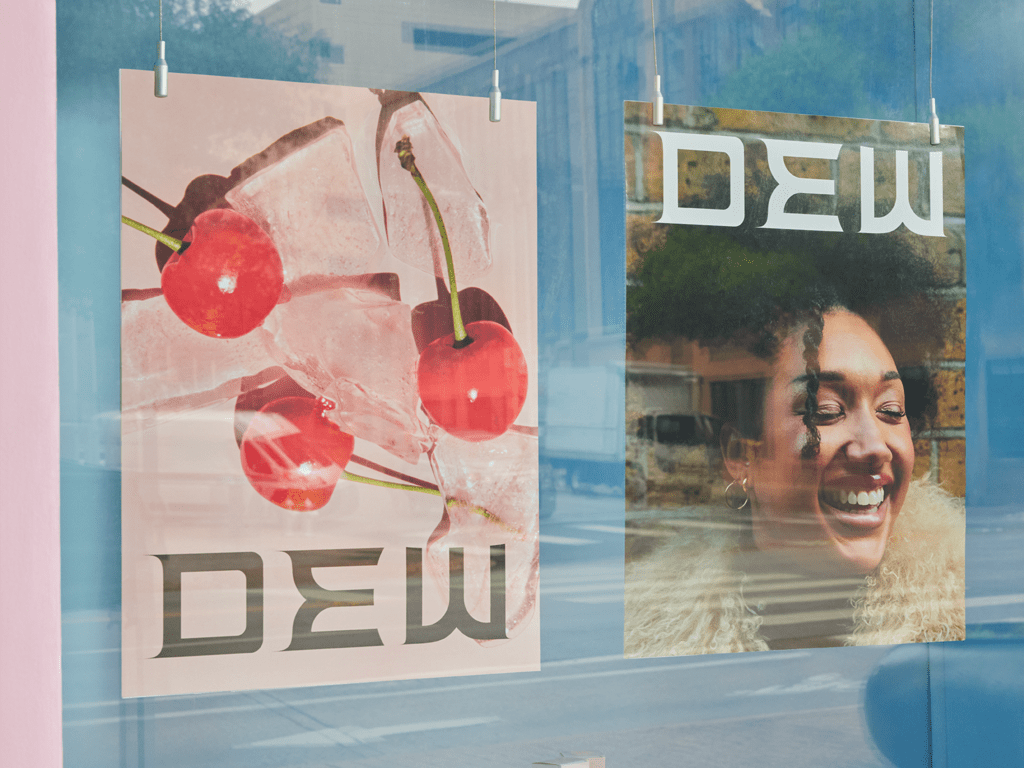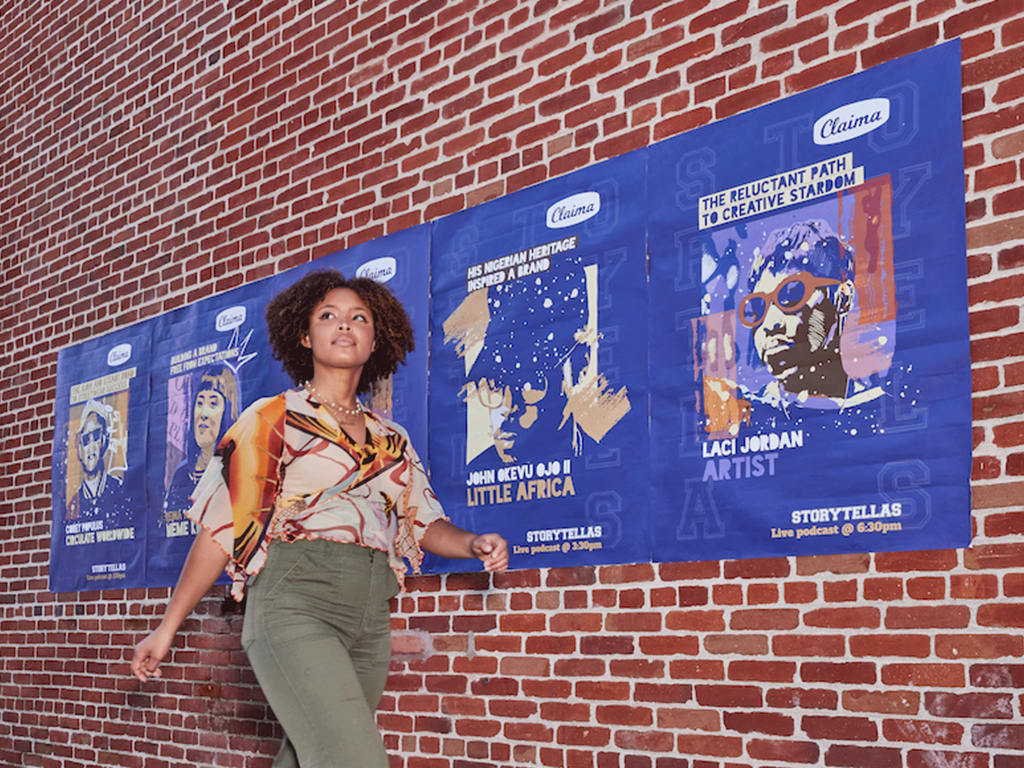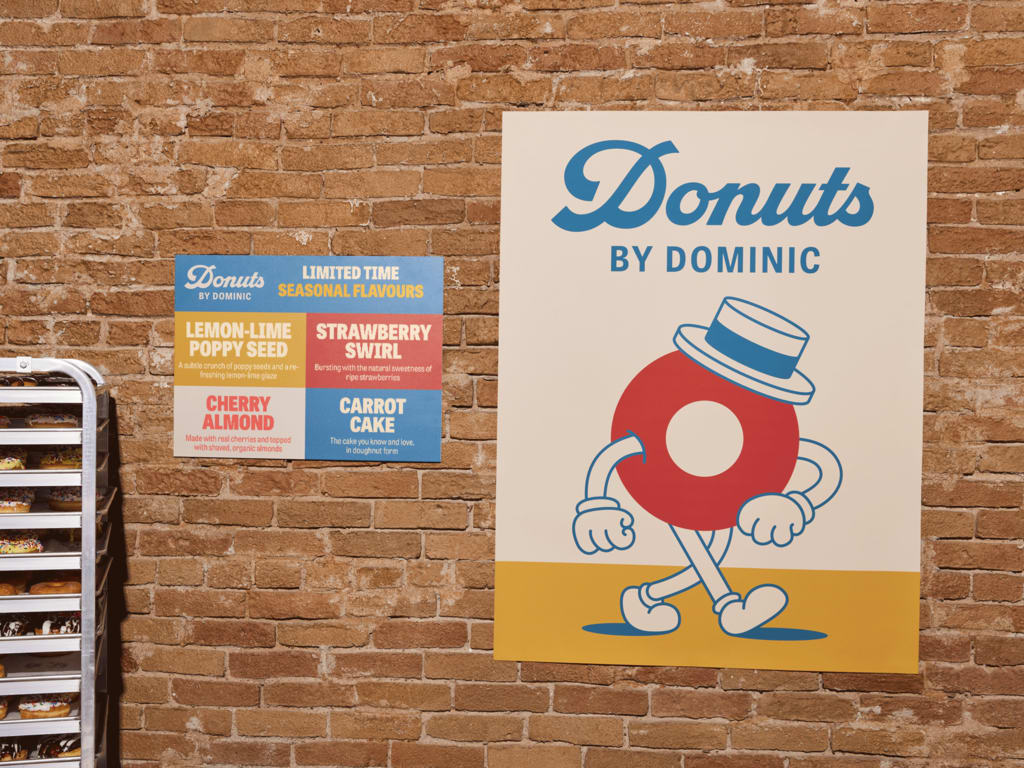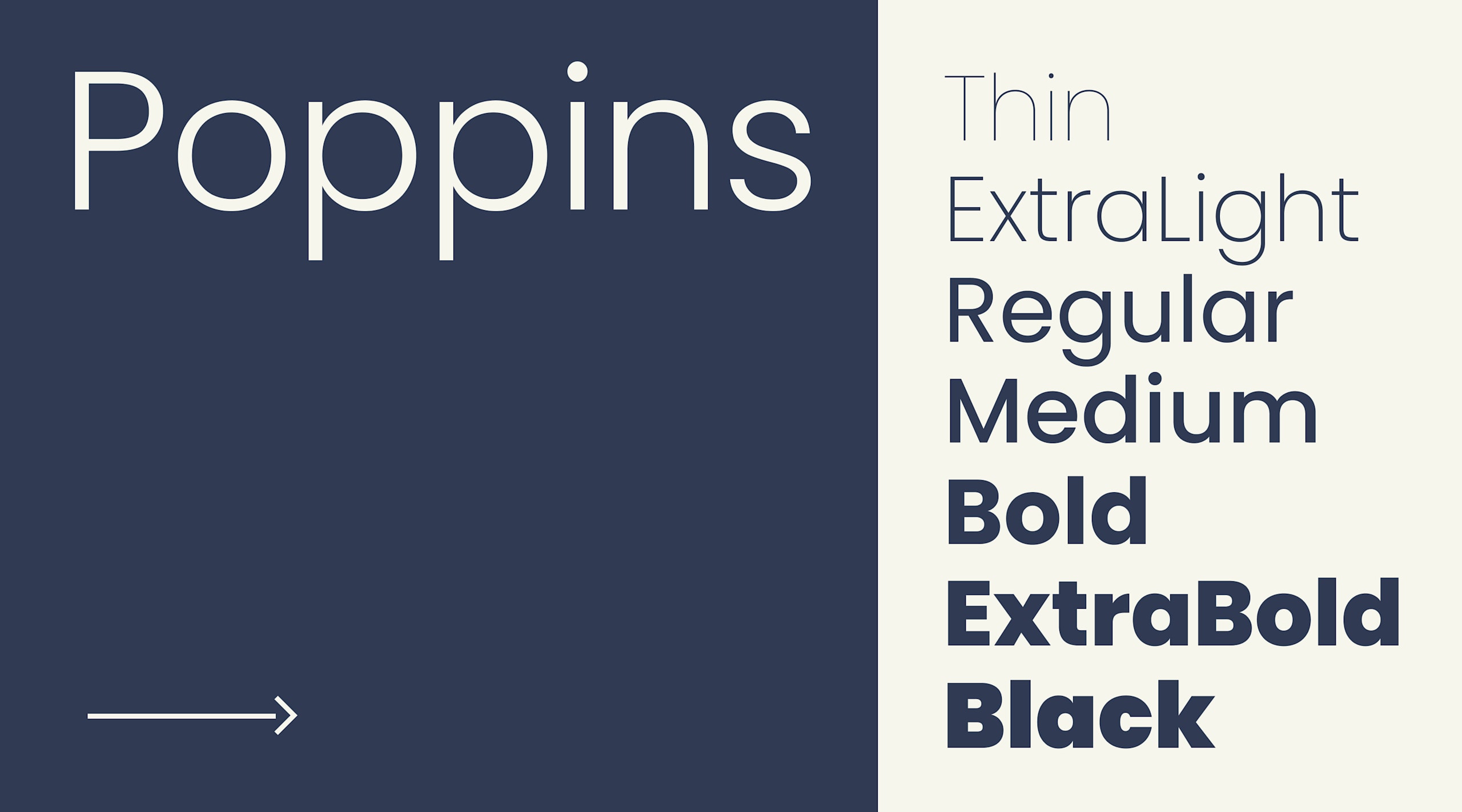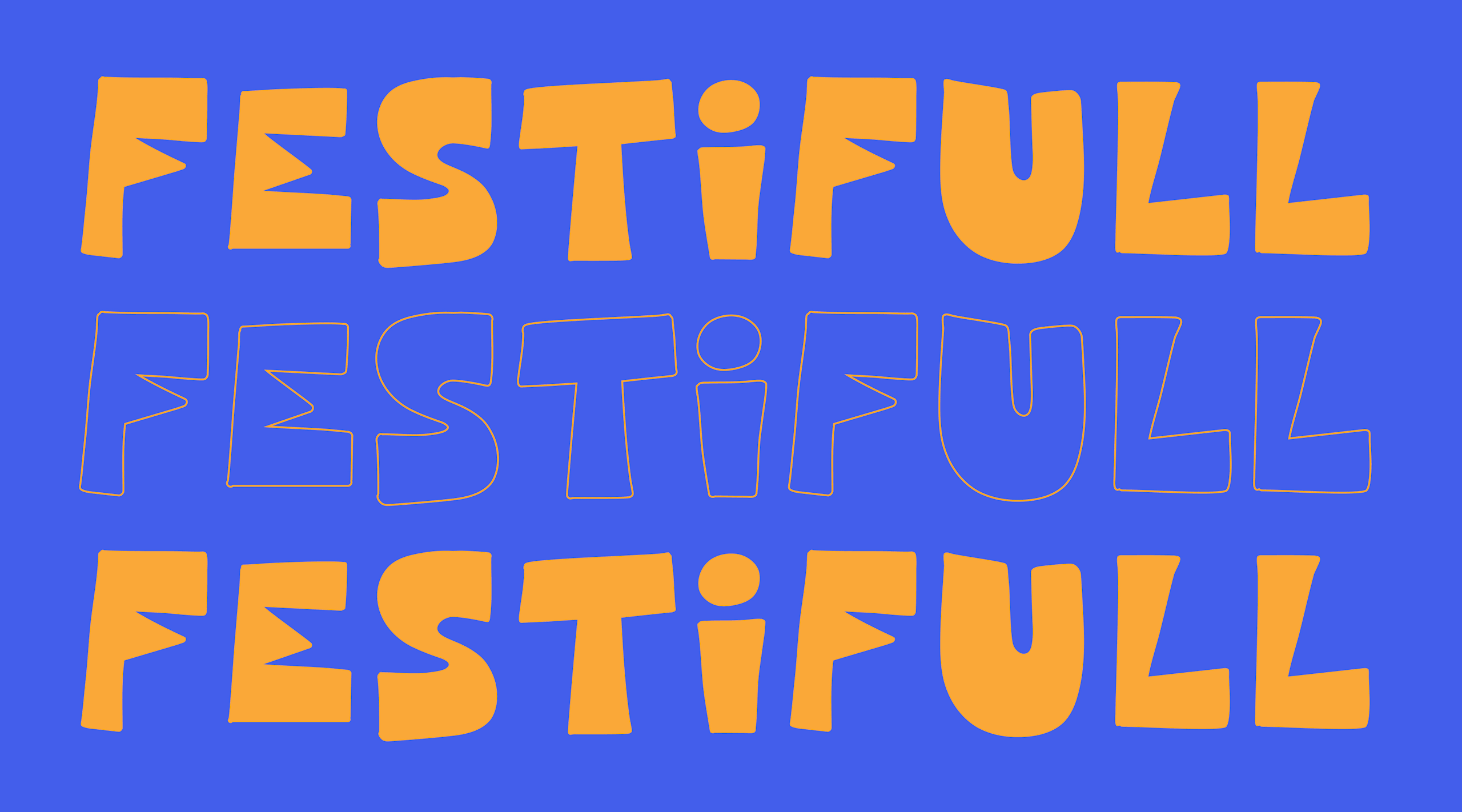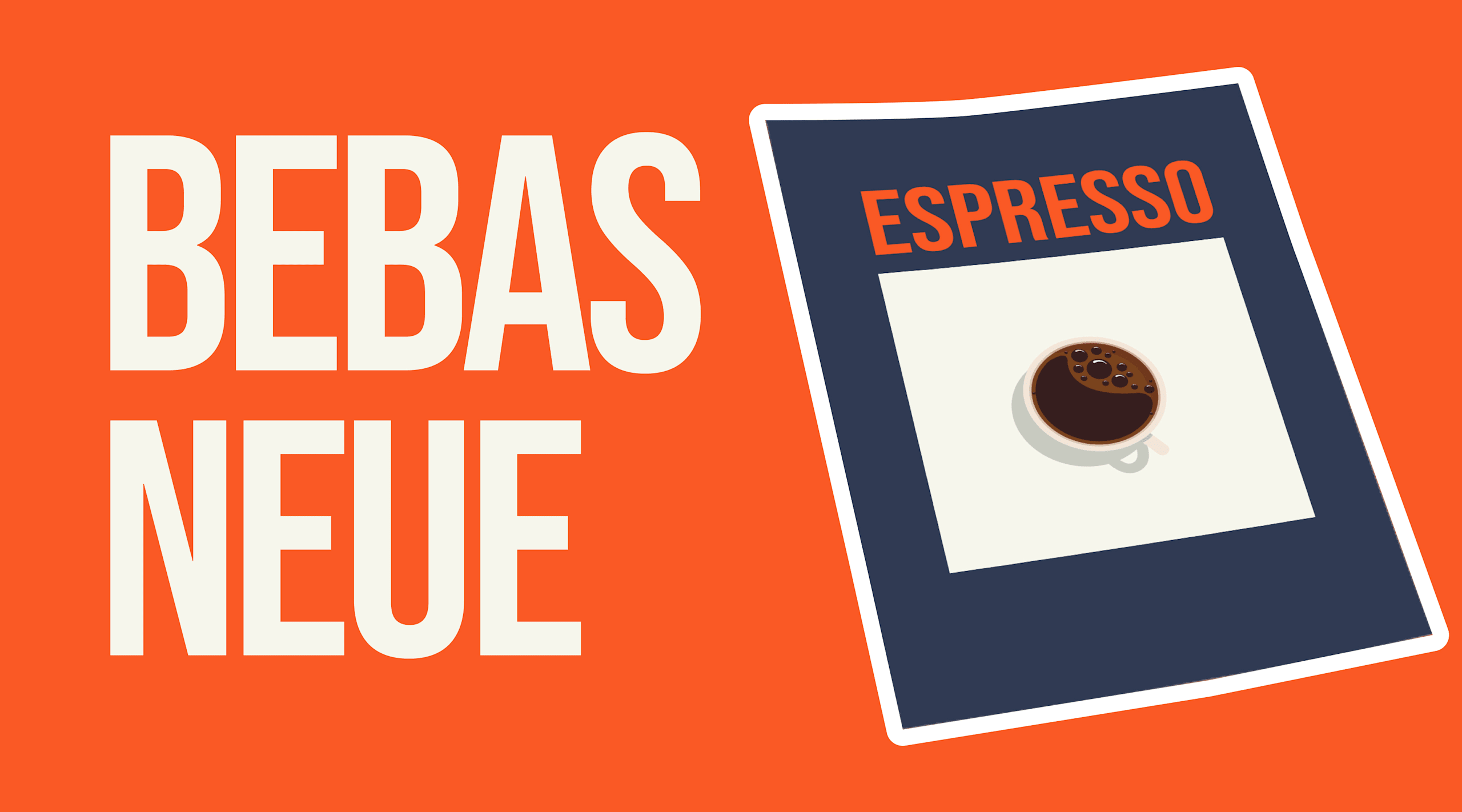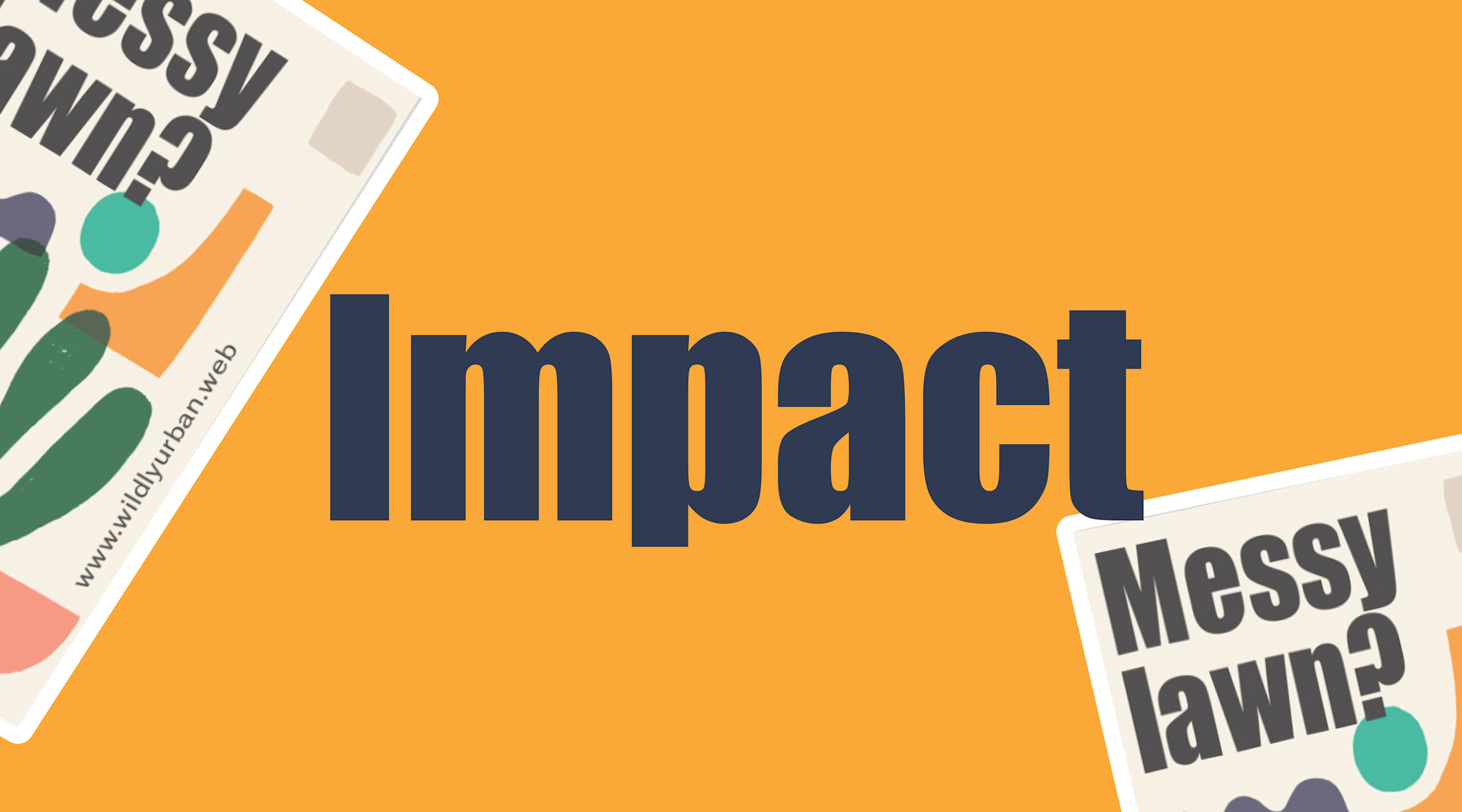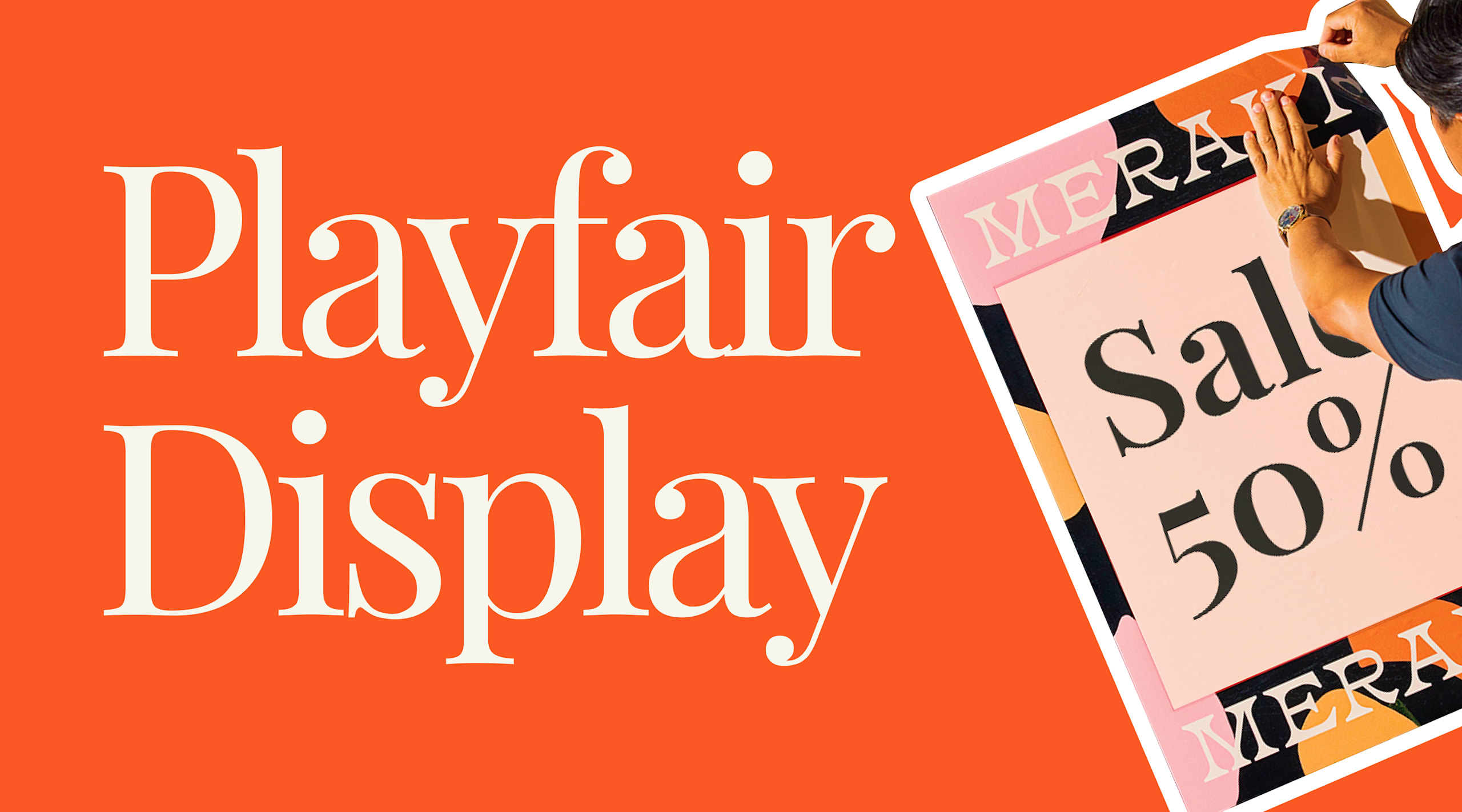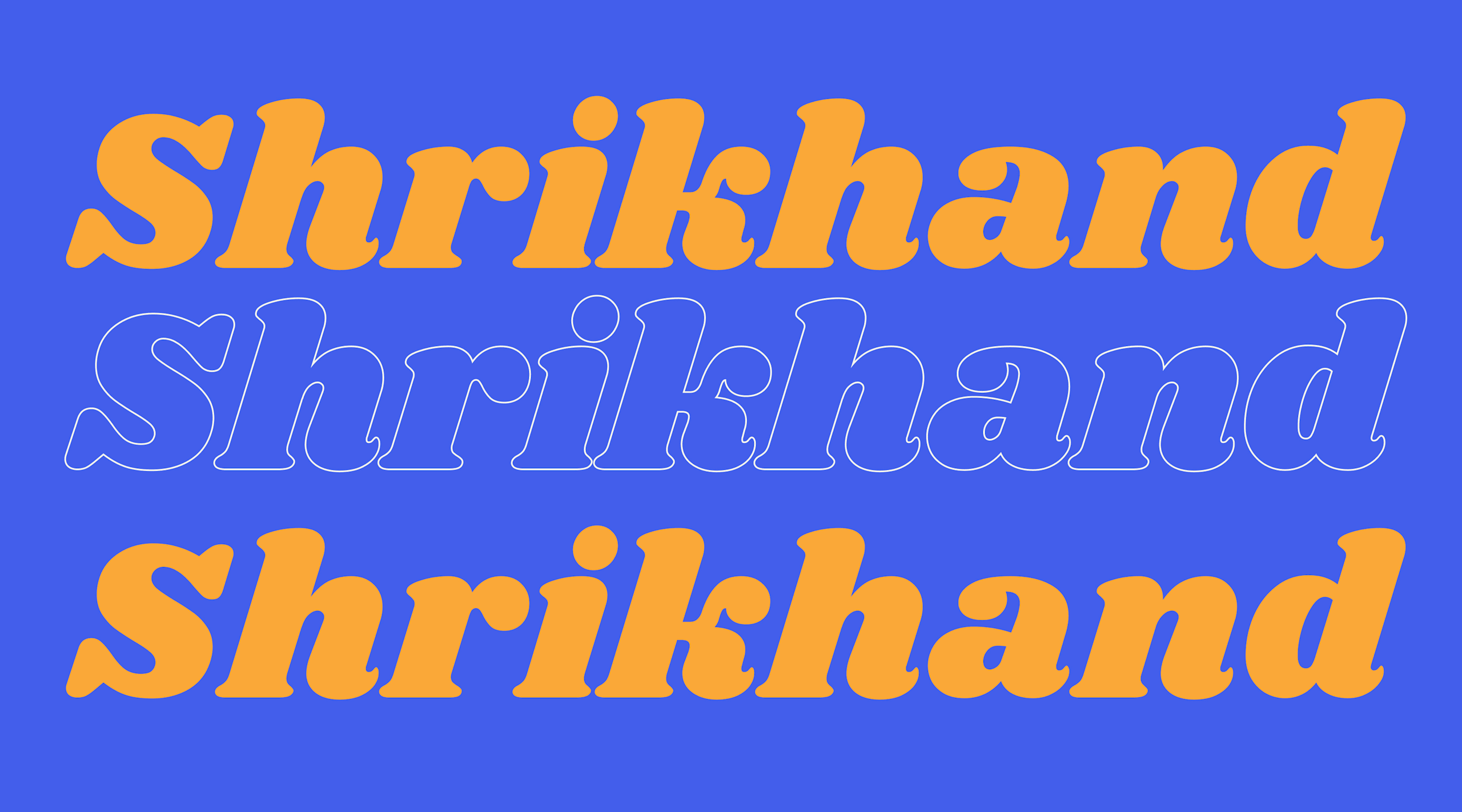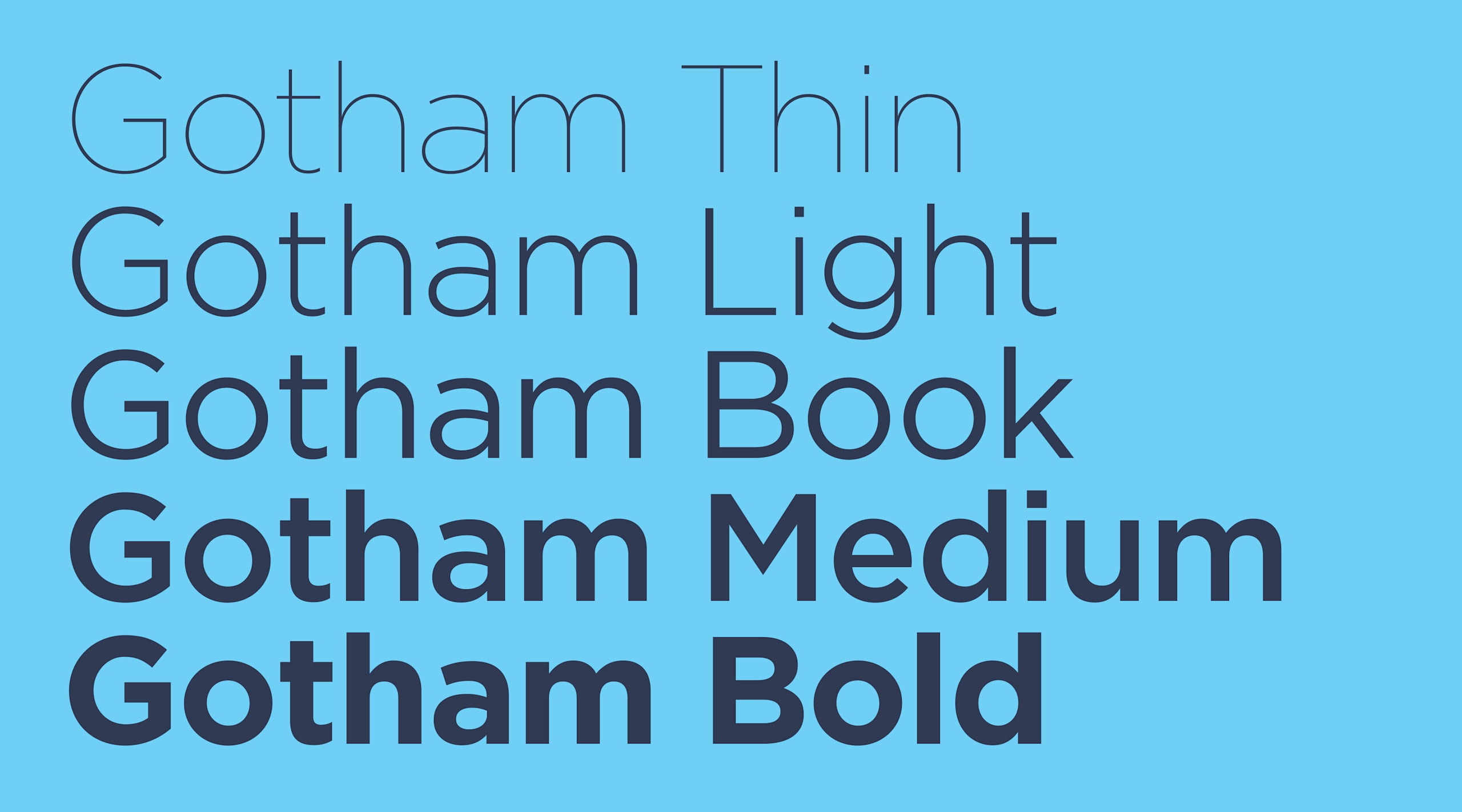
15 poster fonts to entice new customers
Colorful store counter with branded poster fonts, coordinated menus, paper bags, and logo stickers.
Whether you’re designing a poster to promote a local event or a major product launch, the right font can affect the impact your poster has on your audience. The best poster fonts balance style with legibility, making sure your message isn’t just seen, but remembered. From bold sans serifs to elegant scripts, this guide will walk you through 15 good fonts for posters and how to use them effectively to grab attention and entice new customers.
How to choose a good poster font
The best font for your poster depends on your audience, message and where it will be displayed. The right typeface can communicate your brand’s personality before people even read the words on your poster.
Consider the viewing distance
Fonts that look great up close might lose impact from 20 feet away. Opt for bolder typefaces with clear, distinct letterforms in larger text sizes for posters at street-level or designed to be viewed from a distance.
When designing posters for billboards or storefronts, remember that intricate or whimsical details will be lost at a distance. Sans serif fonts are usually more legible than decorative typefaces when viewed from afar. The key is to ensure your message remains clear regardless of where the poster is displayed.
Match your brand personality
Like fonts for flyers and brochures, your poster font and design should reflect your brand identity and voice. Think about what your font communicates. For example, a suitable font for a law firm’s event poster will differ from a concert poster font.
A serif typeface conveys tradition, reliability and sophistication, while sans serif fonts project modernity and simplicity. Script fonts suggest elegance and creativity, and display fonts can express personality and boldness.
Artistic and playful poster fonts.
Balance readability with style
Even the coolest fonts are ineffective if people can’t understand the message of your poster quickly. This doesn’t mean you should avoid creative fonts altogether—just use them strategically.
Consider using more expressive fonts for headlines and shorter text elements, and highly readable fonts for body copy, creating visual hierarchy and ensuring the information is accessible.
Clear sans serif poster fonts for donut bakery.
Grab attention with titles
Because the headline is your poster’s first impression, it needs to command attention instantly.
Title fonts should be:
• Substantially larger than body text (typically 2-3 times bigger)
• Bold or heavy in weight to create contrast
• Distinctive enough to capture interest
• Still readable at a glance
Typefaces specifically designed for headlines are a category of display fonts crafted to make a statement at large sizes, but might not work well for smaller text.
Poster fonts in different colors and sizes for fitness business.
15 font ideas for posters
When choosing poster fonts, you need a typeface that captures attention and clearly communicates the mood of a campaign and the tone of your message. Here are 15 good fonts for posters, accompanied by custom sample text.
Sans serif poster fonts
Clean and highly readable, sans serif fonts (without the fine strokes at the ends of characters) are popular fonts for modern poster designs and work well even at smaller sizes.
1. TT Commons
TT Commons is a versatile and neutral sans serif typeface with balanced proportions and clean lines. The font comes in many weights from thin to extra bold, allowing you to create hierarchy within your poster design using just one typeface.
Best for: Educational posters, infographics and community event posters. TT Commons can be used for headlines and body copy because it’s ultra legible.
TT Commons clean poster fonts.
2. Futura
Futura is a timeless and geometric sans serif font based on perfect circles and clean lines. Created in the 1920s, this popular font still feels modern, making it one of the most enduring poster fonts available.
Best for: Fashion posters, art exhibitions and architectural event posters.
Futura poster fonts with geometric, modern shapes.
3. Work Sans
Work Sans is a friendly and adaptable sans serif font with soft touches that add warmth to its geometric structure. As a free Google font, Work Sans is an affordable go-to font for small businesses and community organizations.
Best for: Small business promotions, community events and brand announcements. This free font comes with multiple weights, so it can be used to create hierarchy without switching typefaces.
Work Sans free poster fonts with geometric style.
Display poster fonts
These bold, attention-grabbing fonts are designed for headline text, rather than body text. When combining fonts, use one display font for headlines, one clean sans serif for subheadings and one highly readable font for body text to create a clear hierarchy.
4. TT Trailers
TT Trailers is an expressive and cinematic display font created specifically for impactful header text. The narrow letterforms allow you to use larger text sizes and longer titles, even with limited poster canvas space.
Best for: Movie or theatre posters and promotional posters designed to make an impact. The big-screen impact of the narrow letterforms helps create excitement.
TT Trailers headline poster fonts.
5. Bebas Neue
Bebas Neue is a powerful and compact all-caps sans serif font that packs maximum visual punch into minimal space. Its tall height and condensed proportions make it efficient and impactful for headers where space is limited, and its clean lines maintain legibility even when used with strong backgrounds or overlaid onto images.
Best for: Sales announcements, sports events and bold promotions. The all-caps look commands attention even when space is limited.
Bebas Neue bold, compact poster fonts with an all-caps style.
6. Impact
Impact is a bold and unmissable display font designed to grab attention. Its heavy weight, tight letter spacing and tall height are engineered to maximize presence in minimal space.
Best for: Important announcements and sales promotions. The bold weight and tight spacing make your message impossible to ignore.
Impact bold heavyweight poster fonts.
Serif poster fonts
With distinctive “feet” at the end of letter strokes, serif fonts communicate tradition, reliability and sophistication. Serifs make great fonts for educational posters and upscale events.
7. Playfair Display
Playfair Display is an elegant and dramatic serif font inspired by the typefaces of the late 18th century. Its distinctive thick-thin transitions create a sophisticated, editorial quality that elevates poster designs.
Best for: Cultural events, literary readings and upscale promotions. The dramatic thick-thin transitions can lend a poster a more sophisticated look.
Playfair Display elegant serif poster fonts.
8. Sentinel
Sentinel is a sturdy and distinctive slab serif that combines traditional structure with contemporary details. The robust serifs provide visual weight while maintaining excellent readability across various sizes.
Best for: Great font for educational posters, historical events and academic conferences because of the sophisticated look of the substantial slab serifs.
Sentinel serif poster fonts.
Script and handwritten fonts
Mimicking handwriting or calligraphy, script fonts bring personality and elegance to a poster.
9. Brush Script
Brush Script is a classic font with personality that mimics casual handwriting with a brush or marker. Its flowing connections and varied stroke weights create an organic, human feel that’s instantly recognizable.
Best for: Food festivals, craft fairs and announcements. Brush Script adds a warm, inviting quality to promotional materials, while the casual, flowing style brings a human touch to community events.
Brush Script handwritten-style poster fonts.
10. Shrikhand
Shrikhand is a bold and decorative script inspired by traditional Indian signage. Its distinctive horizontal connecting stroke and decorative flourishes create a unique personality that stands out from typical Western scripts.
Best for: Cultural celebrations, food festivals and vibrant announcements. This font brings cultural richness and a unique touch to poster designs. Its bold weight ensures legibility even at a distance.
Shrikhand display poster fonts with bold, decorative strokes.
Modern and stylish options
Modern poster fonts offer clean lines with thoughtful details for contemporary designs that need to project forward-thinking sophistication. These typefaces work especially well for concert posters and tech promotions.
11. Gotham
Gotham is a clean and contemporary geometric sans serif inspired by mid-century architectural lettering. Its balanced proportions and subtle warmth have made it one of the most influential typefaces of the 21st century.
Best for: Modern business branding, urban event promotions and professional conferences. This professional font communicates authority without feeling cold, while the balanced geometric forms add a friendly feel.
Gotham modern poster fonts with clean geometric lines.
12. TT Neoris
TT Neoris is a sleek, upscale display font that seamlessly blends geometric precision with subtle organic touches. Its carefully crafted letterforms feature distinctive details that become more apparent at larger sizes.
Best for: Fashion posters, corporate events and luxury promotions. The elegant curves and modern angles of this commercial font instantly elevate any poster design.
TT Neoris sleek poster fonts.
Playful and distinctive choices
Playful fonts are the most effective way to communicate warmth, approachability or creativity on a poster. These poster fonts with an illustrative quality work particularly well for promoting family events or creative industries and targeting younger audiences.
13. Cooper Black
Cooper Black is a bold serif font with chunky, rounded letterforms that create a distinctive yet approachable look that feels friendly and cheerful. Originally designed in 1922, this playful font has had multiple revivals.
Best for: Family events and nostalgic promotions. Cooper Black remains relevant for brands seeking to project warmth and accessibility.
Cooper Black retro poster fonts.
14. Poppins
Poppins is a clean font with personality that balances geometric structure with subtle rounded details. This combination creates a professional font with a contemporary feel. Its geometric letterforms are clear and modern, while the subtle rounded details add warmth.
Best for: Tech events, modern promotions and youth-oriented campaigns.
Poppins clean and modern poster fonts with rounded geometric style.
15. Festifull
Festifull is a playful and festive display font designed for celebrations and events. Its bouncy baseline and energetic character instantly communicate fun and excitement.
Best for: Kids’ events, holiday parties and celebration posters. The bouncy, energetic character instantly communicates fun.
Festifull playful poster fonts.
Common mistakes to avoid
Avoid these common typography pitfalls in your poster design.
Too many fonts
One of the most common mistakes in poster design is using too many different typefaces. This creates visual confusion and dilutes the message of your poster.
Instead, create visual diversity, cohesion and hierarchy through:
• Varying sizes of the same font
• Using different weights (bold, regular, light)
• Mixing uppercase and lowercase
• Color contrast
Poor color contrast
Make sure your font color stands out clearly against the poster’s background color. Low contrast between text and background will make your message harder to read.
Design ideas for better color contrast:
• Black or dark text on light backgrounds generally offers the best readability
• White or light text on dark backgrounds can be effective, but may require slightly larger sizes
• Avoid placing text directly on busy patterns without a buffer
Overly decorative fonts for body text
The text communicating your poster’s important information needs to be instantly readable. Save your most creative, distinctive poster fonts with dramatic features or whimsical details for headlines and large text elements. For body copy, prioritize legibility over style. This doesn’t mean body text has to be boring, clarity just takes precedence.
Forgetting about print considerations
Digital design doesn’t always translate to printed materials—fonts that look great on screen might lose detail or impact when printed. Thin lines, fine strokes and small text might be hard to read when printed, while some colors might look different with CMYK printing. So always do a test print before finalizing your poster design.
And don’t forget to consider how your poster design connects with your leave-behind marketing materials.
Fonts for different poster types
Here’s how to select the right font for different poster applications.
Concert poster fonts
Concert poster fonts often need to express the music genre and create excitement. Consider:
• Bold, distressed fonts for rock concerts, like Blackletter or Grunged
• Elegant scripts for classical performances e.g. Bickham Script
• Clean, modern sans serifs for electronic music, such as Eurostile or Avenir
• Retro typefaces for nostalgic acts, like Futura and Cooper Black
The best concert poster fonts instantly communicate the type of music and atmosphere attendees can expect. Your typography should match the energy and style of the performance.
When designing concert posters, create visual contrast between the band name and supporting information. Make the band name 3-4 times larger than the venue or date details. For legibility in dark venues or outdoor settings, choose high-contrast color combinations like black on yellow or white on deep blue.
Creative poster fonts that feature artists.
Educational poster fonts
For educational poster body text, use clean, readable fonts, for example, Charter, Georgia or Source Sans. Present a clear hierarchy with consistent heading styles and use a limited color palette to avoid distraction.
Promotional poster fonts
For sales and promotional posters:
• Use bold, attention-grabbing headline fonts like Impact or Bebas Neue
• Print information using clean, readable fonts like Helvetica and Gotham
• Use color strategically to highlight key details
• Include a clear call-to-action using distinctive typography
Font pairing strategies
Creating effective poster designs often means combining multiple fonts. Try these effective font pairings:
• Futura headline + Garamond body text: The geometric precision of Futura contrasts well with Garamond’s classic readability.
• Bebas Neue headline + Open Sans body text: The compact boldness of Bebas Neue pairs well with the clean accessibility of Open Sans.
• Playfair Display headline + Work Sans body text: This font pairing balances tradition and modernity, with Playfair adding sophistication and Work Sans keeping information accessible.
The secret to successful font pairing is creating enough contrast to establish hierarchy while maintaining visual harmony.
Technical considerations for poster fonts
Beyond aesthetics, several technical factors can affect how your poster fonts perform.
Resolution and licensing
When finalizing your poster design, ensure your fonts won’t blur at your intended print size. Make sure you have proper licenses for all fonts used and check if special licensing is needed for commercial use. Font licensing violations can lead to legal issues, especially when creating business promotional materials.
Current trends vs. timeless choices
The most effective poster typefaces often blend font trends with classic principles, ensuring poster designs feel current without becoming dated. While trendy fonts can work for temporary promotions, stick with classic fonts for long-term branding. When choosing a font for your poster, consider your audience and their expectations.
Promotional poster with a bold font for the brand name.
Fonts speak louder than words—ready to pick yours?
The right poster font can turn a message into something that target audiences pay attention to. It’s not just about picking cool fonts—it’s about choosing poster fonts that match your brand, grab attention and most importantly, communicate your message effectively.
Whether creating a concert poster to excite potential attendees or a corporate announcement that needs to feel solid and trustworthy, your poster font choice does a lot of the heavy lifting. In the end, great fonts for posters find that sweet spot between personality and practicality. They should feel like an extension of your brand while still being easy to read and understand.